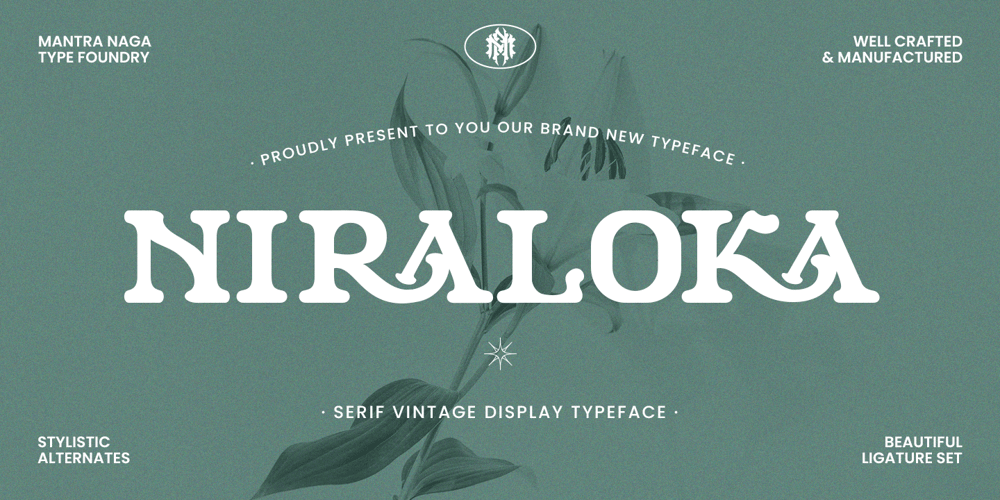
Niraloka
Niraloka font
Niraloka Font Family was designed by Fredo Eka Pratama and published by Mantra Naga Studio. Niraloka contains 1 styles and family package options. Introducing Niraloka – a Serif Vintage Display Typeface. This typeface has many alternatives with swashes that can make your lettering/logotype more attractive.This font is suitable for logos and various other formal forms, such as invitations, labels, logos, magazines, books, greeting/wedding cards, packaging, fashion, makeup, stationery, novels, labels, or advertising. This font is PUA encoded, which means you can access all of the glyphs and swashes with ease!Feature: uppercase & lowercase numbers and punctuation multilingual support ligature alternative swashes PUA encoded We highly recommend using a program that supports the OpenType feature and the Glyphs pane like many Adobe and Corel Draw applications, so that you can view and access all variations of Glyphs. Please read the READ ME file to enable the feature.